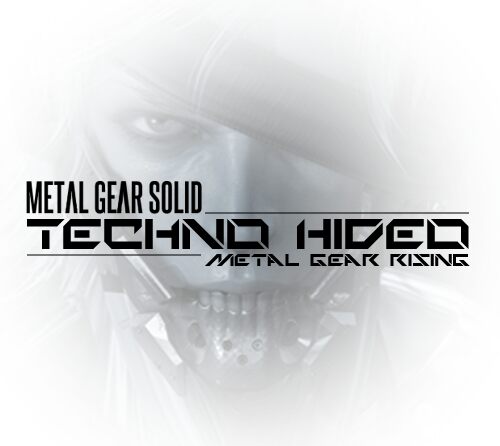
Techno Hideo by TracerTong is a free futuristic display font with broad, angular letters, sharp diagonals, and a hard machine-cut profile. Deep notches and abrupt joins suggest interlocking machinery.
Digital graphics are its clearest medium, with the stretched forms fitting arcade interfaces, science-fiction posters, and electronic music artwork. In game branding, the letters can become part of a control-panel motif rather than serving as ordinary captions.